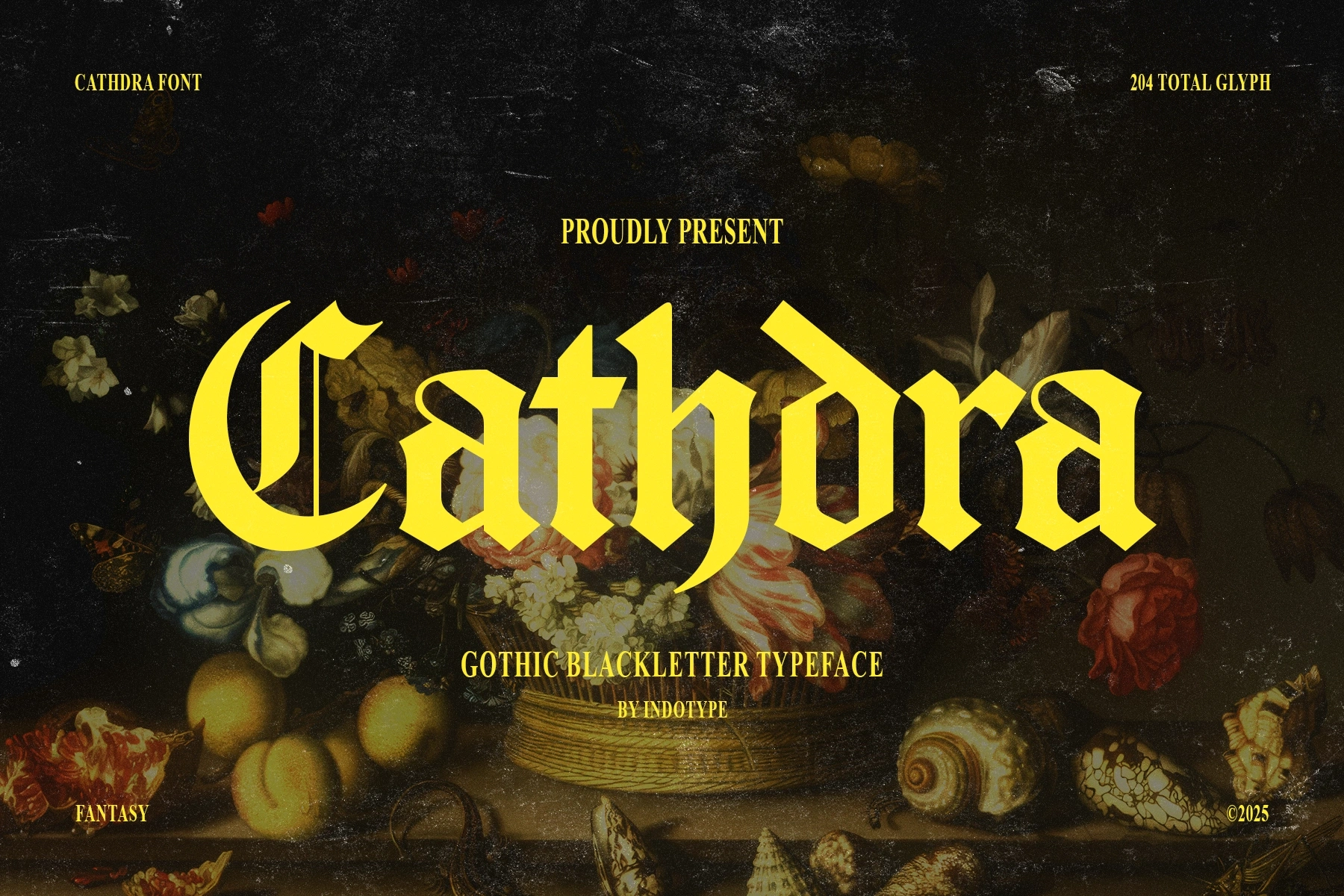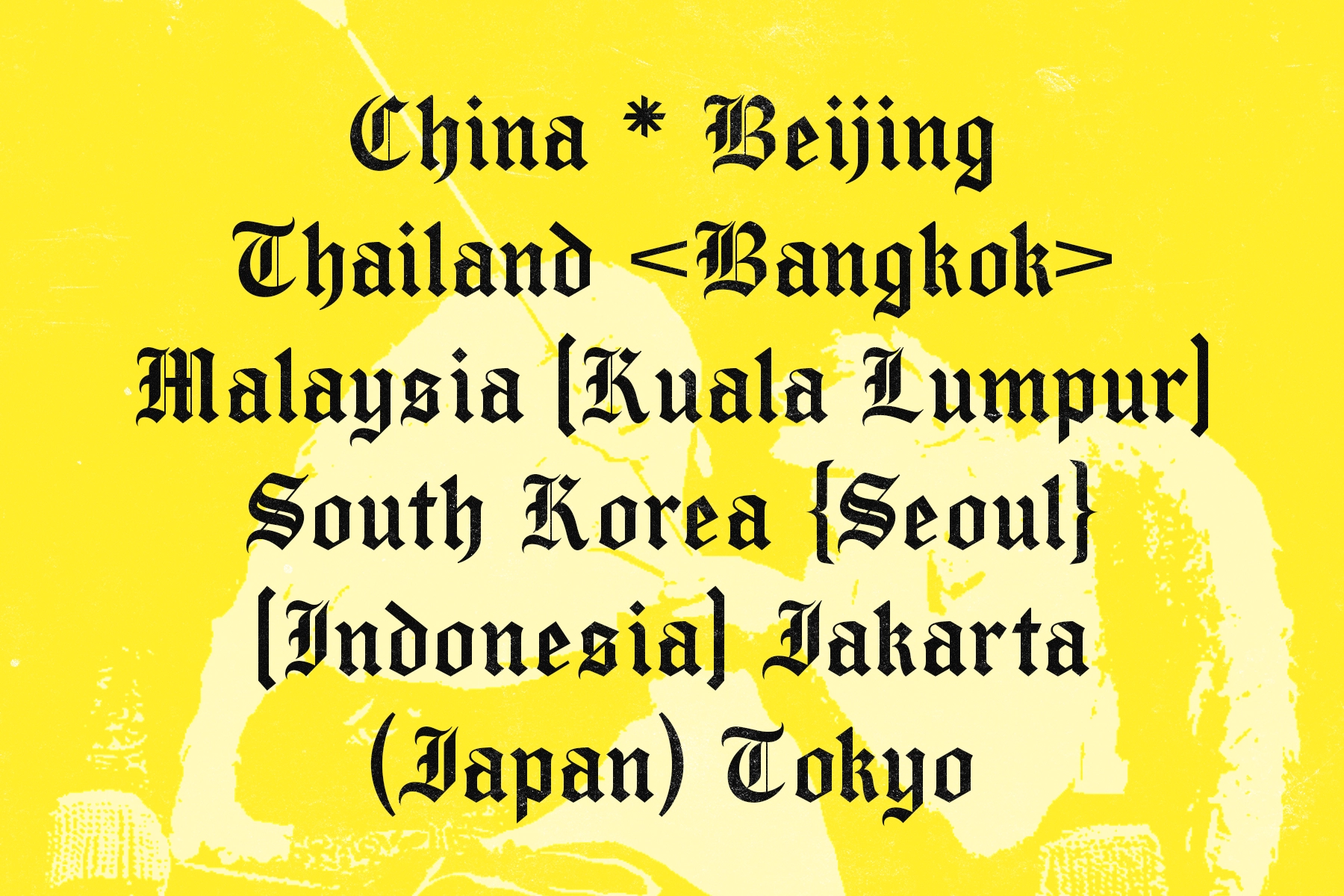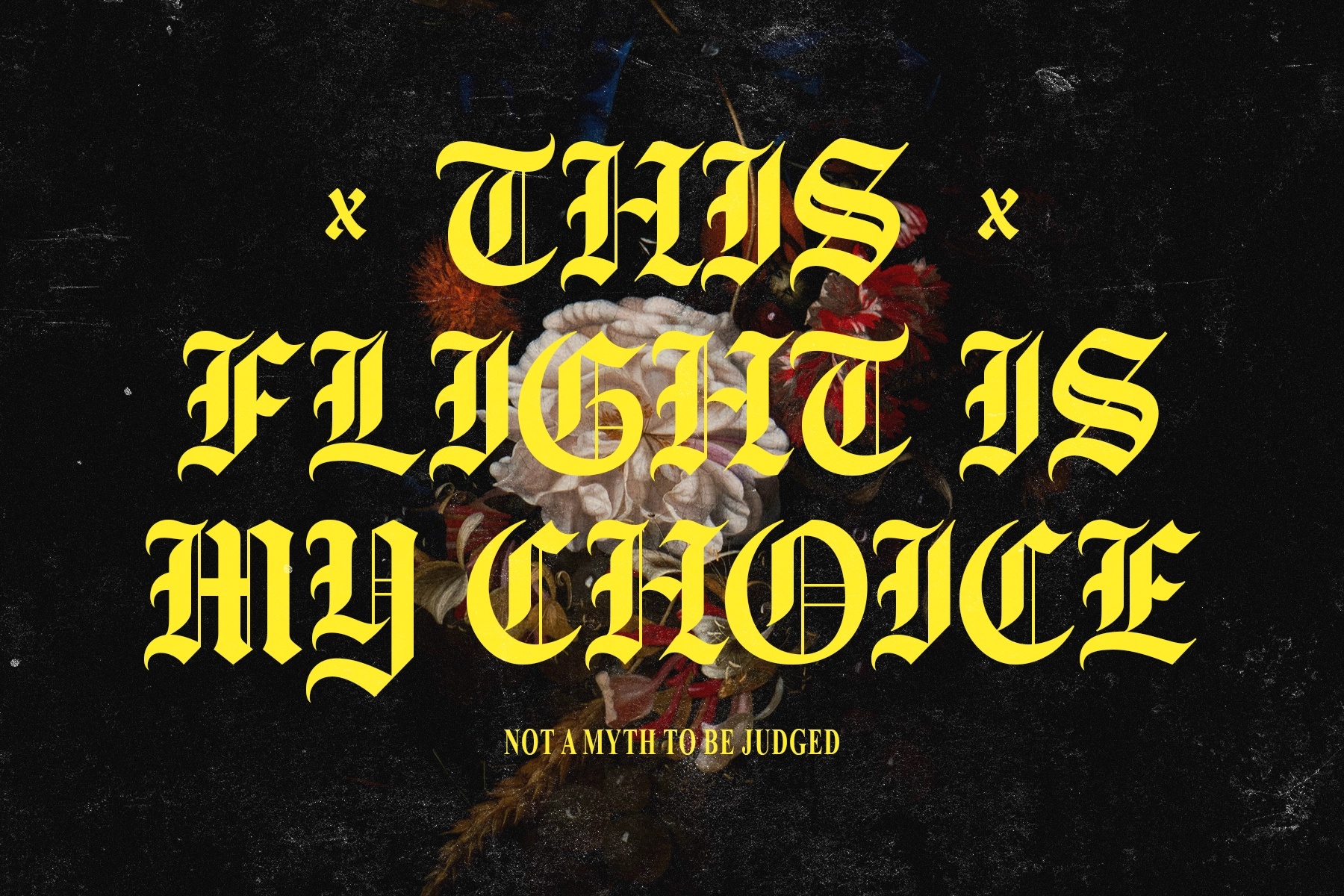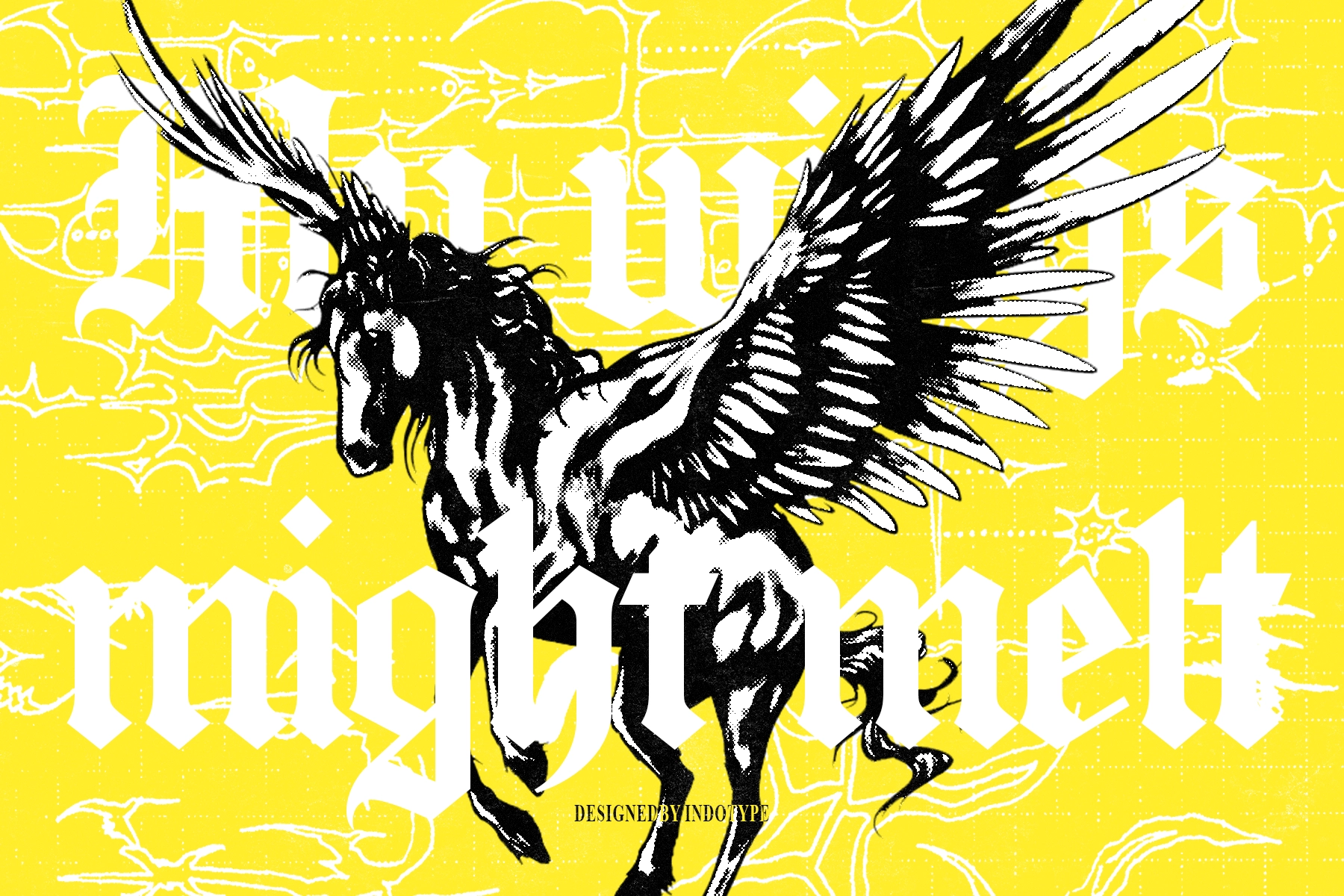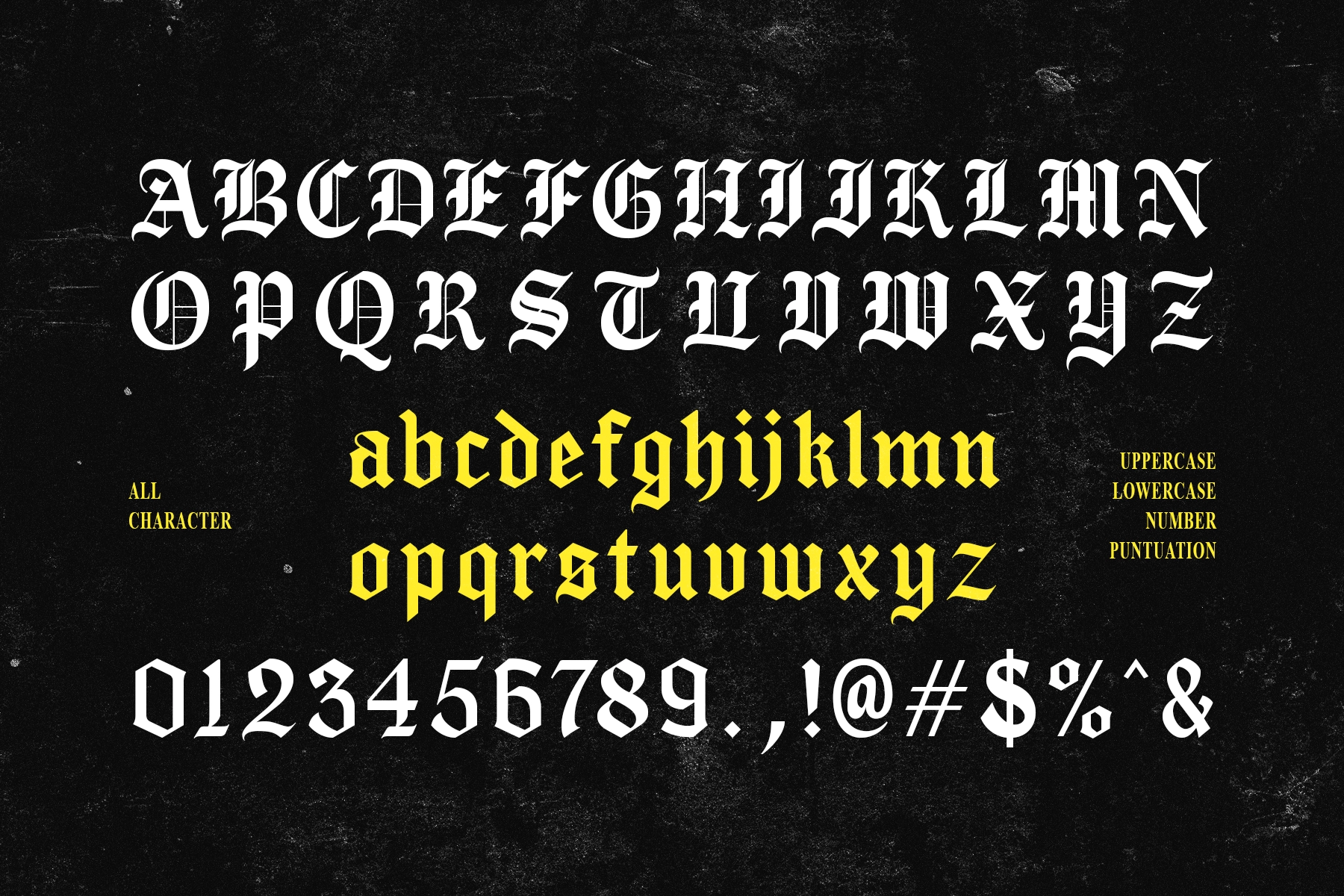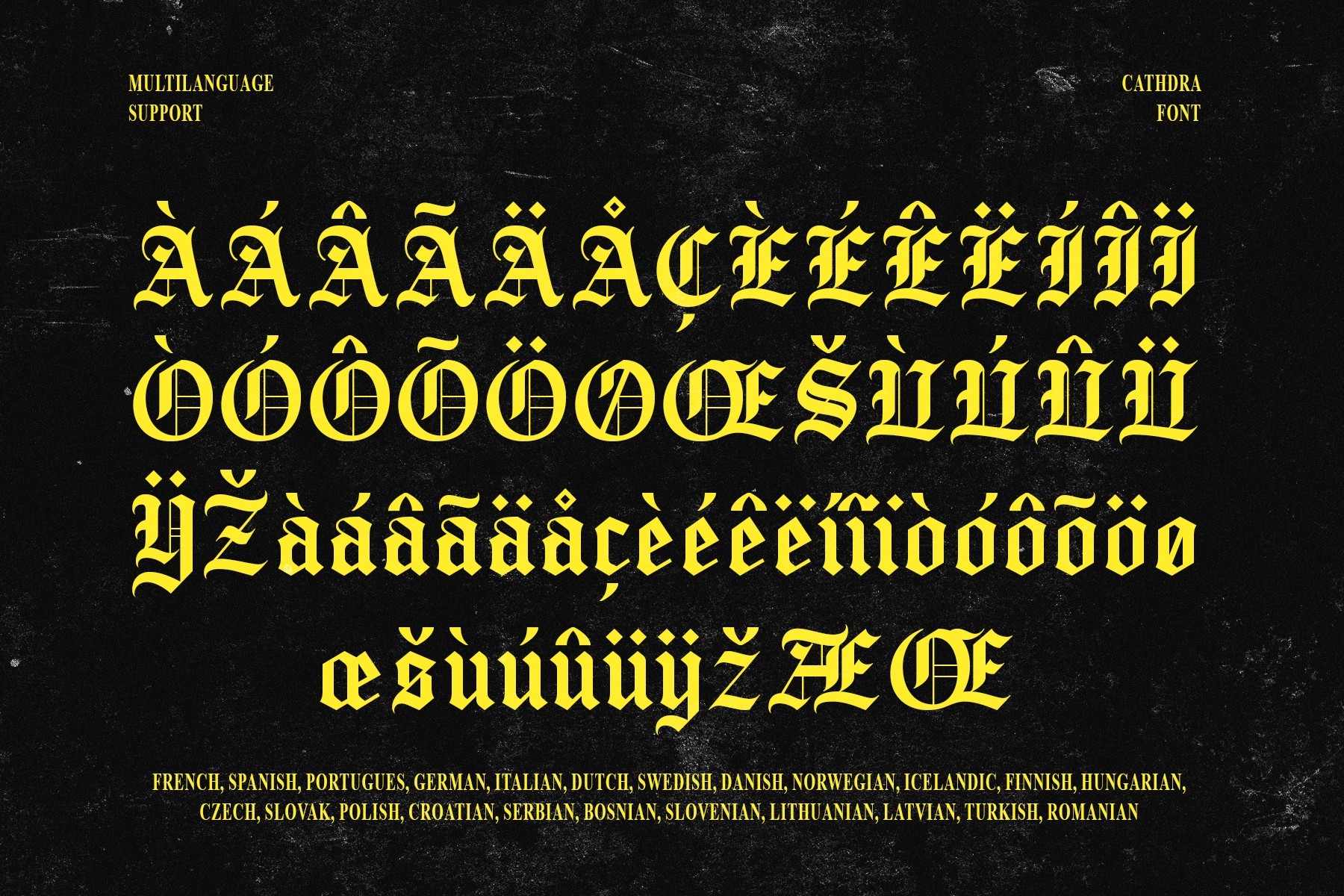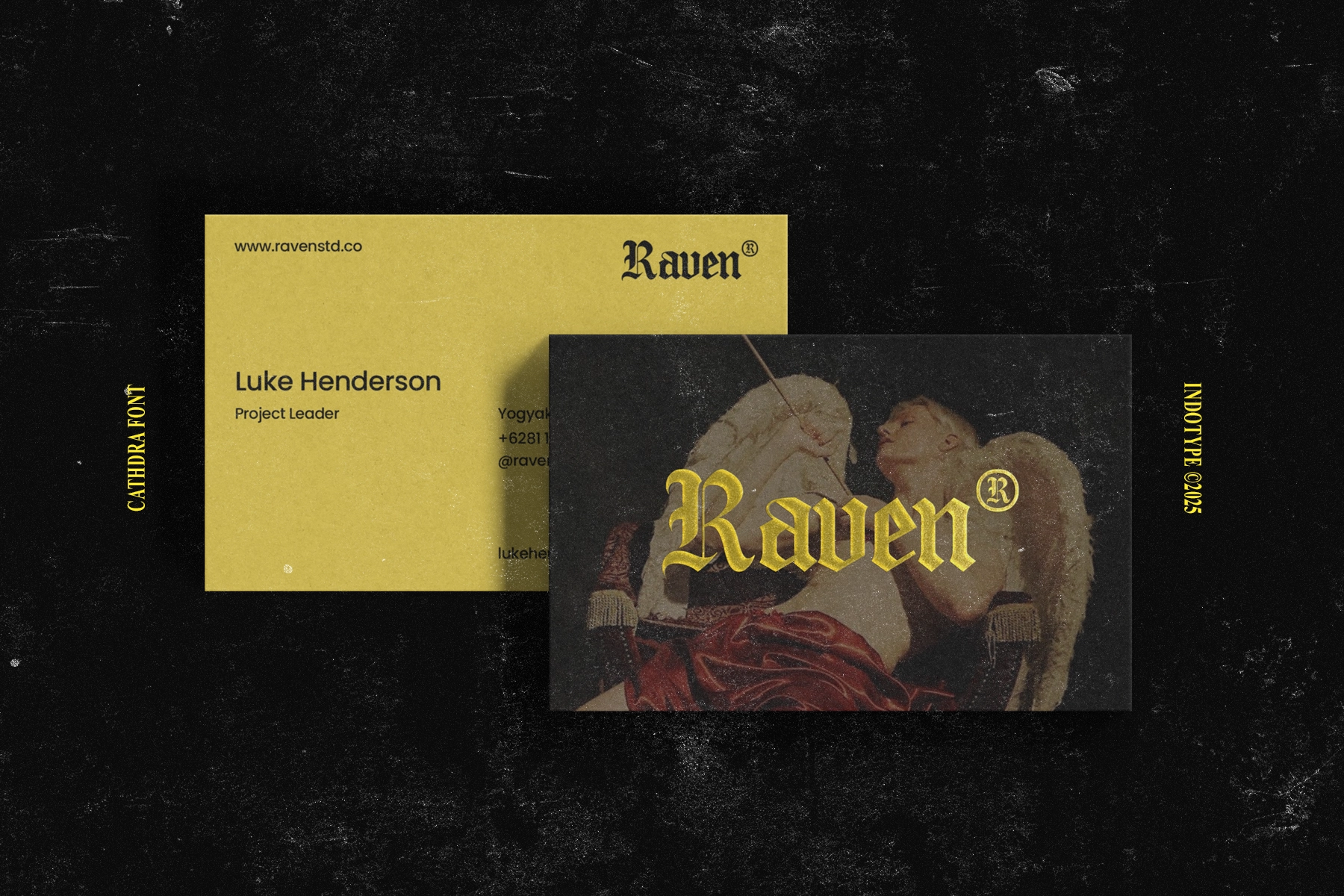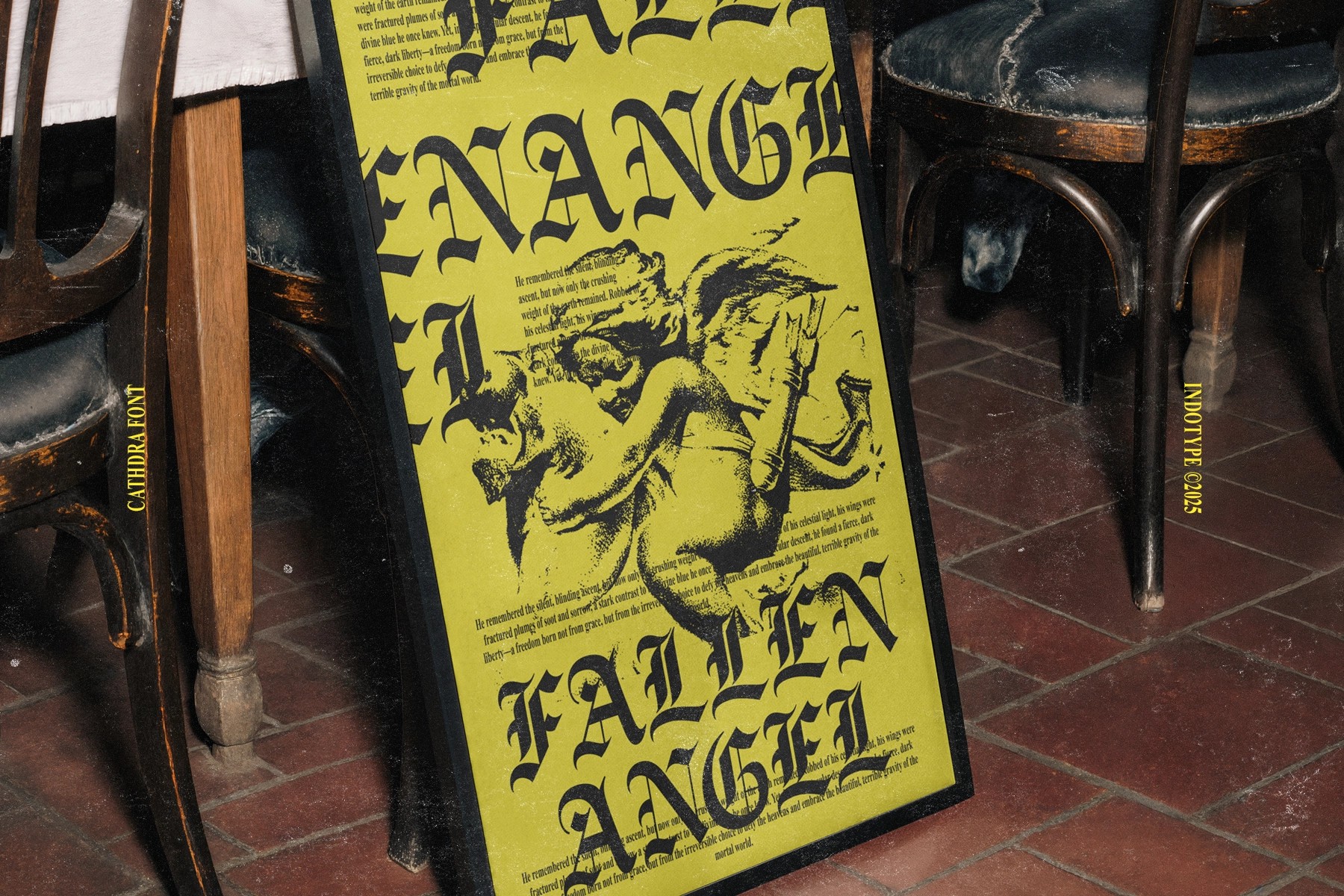
Cathdra - Gothic Blackletter Font
A blackletter typeface with sharp textura forms, dense vertical strokes, diamond-cut serifs, and a solemn manuscript rhythm. The letters are compressed, dramatic, and highly ornamental, making them best for short words, bold titles, and display settings that need instant authority.
Cathdra works for album covers, metal band merchandise, tattoo-style branding, poster headlines, horror editorials, fantasy book covers, whiskey labels, craft beer packaging, logo marks, apparel graphics, game titles, and more.
• 204 total glyphs
• Uppercase & lowercase